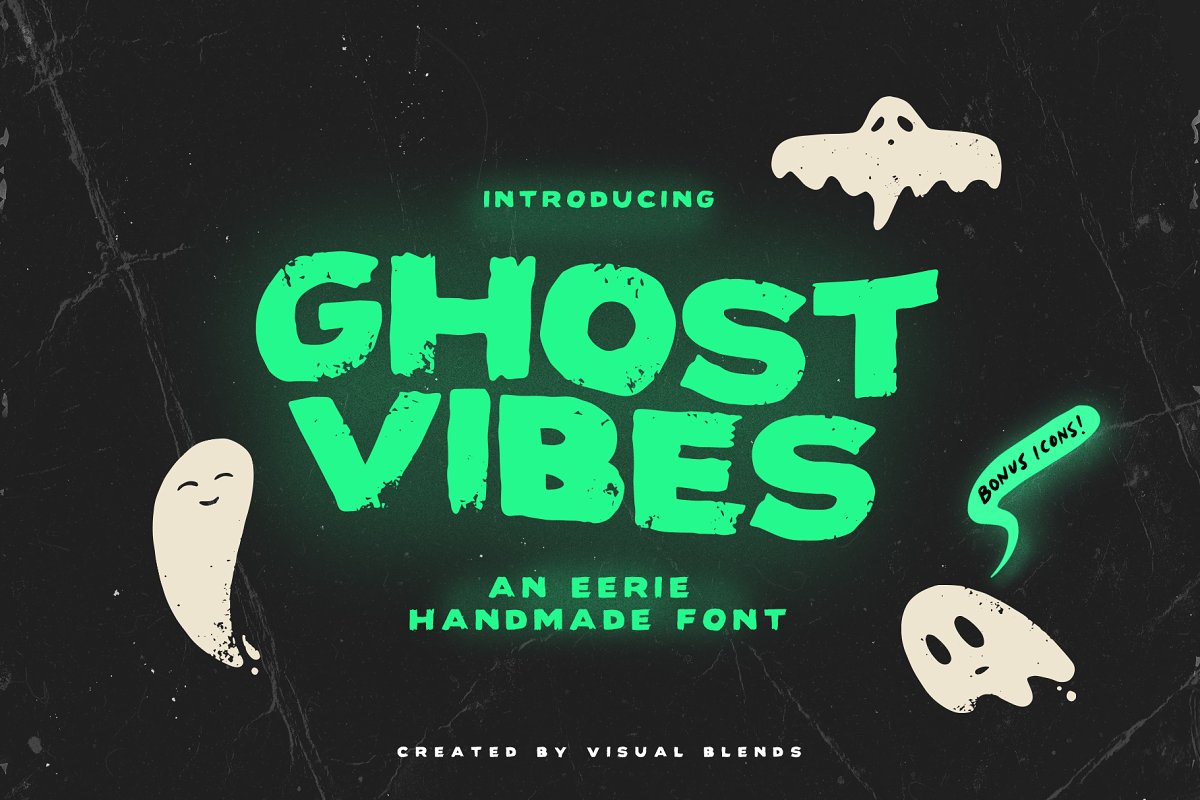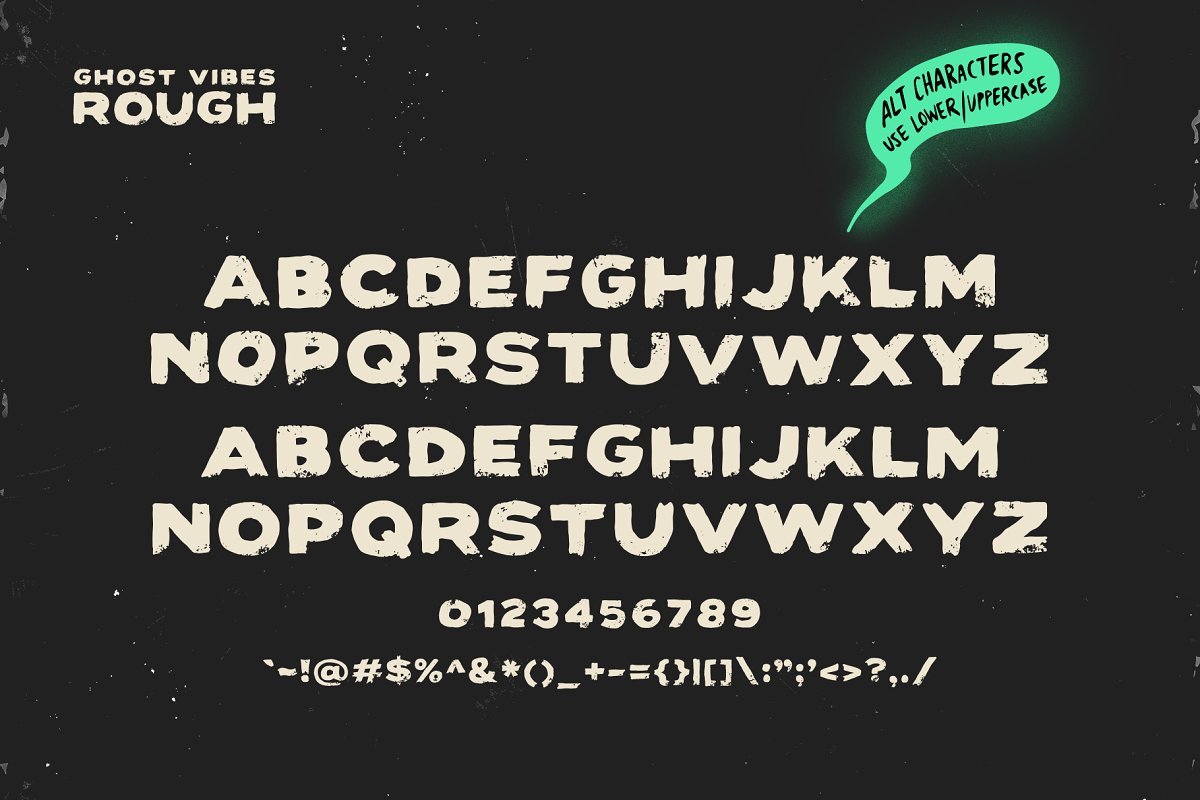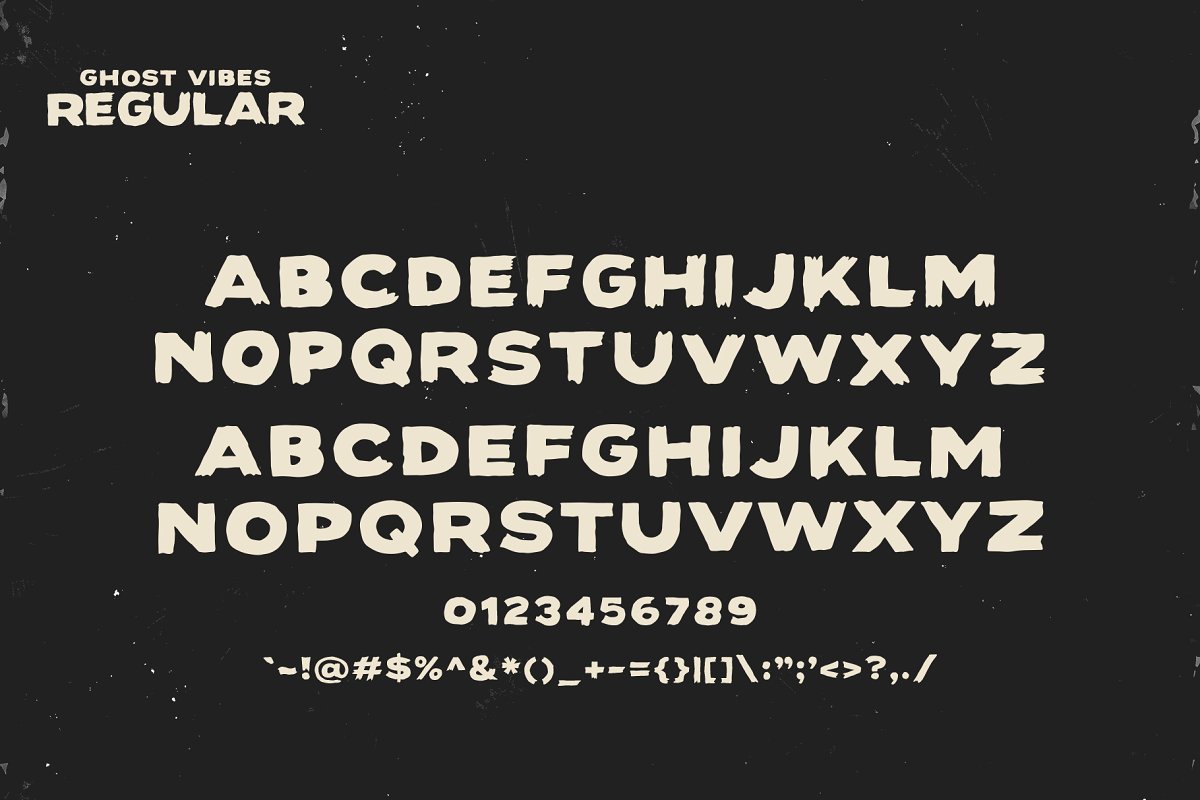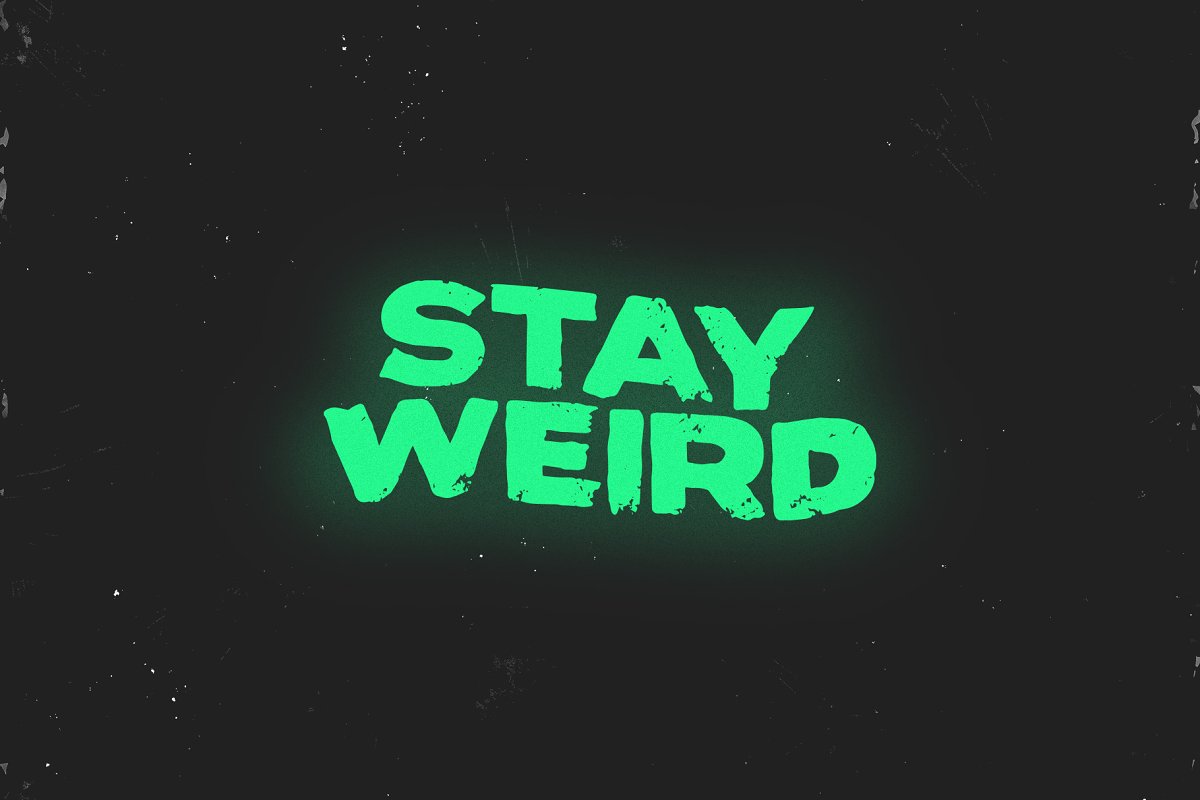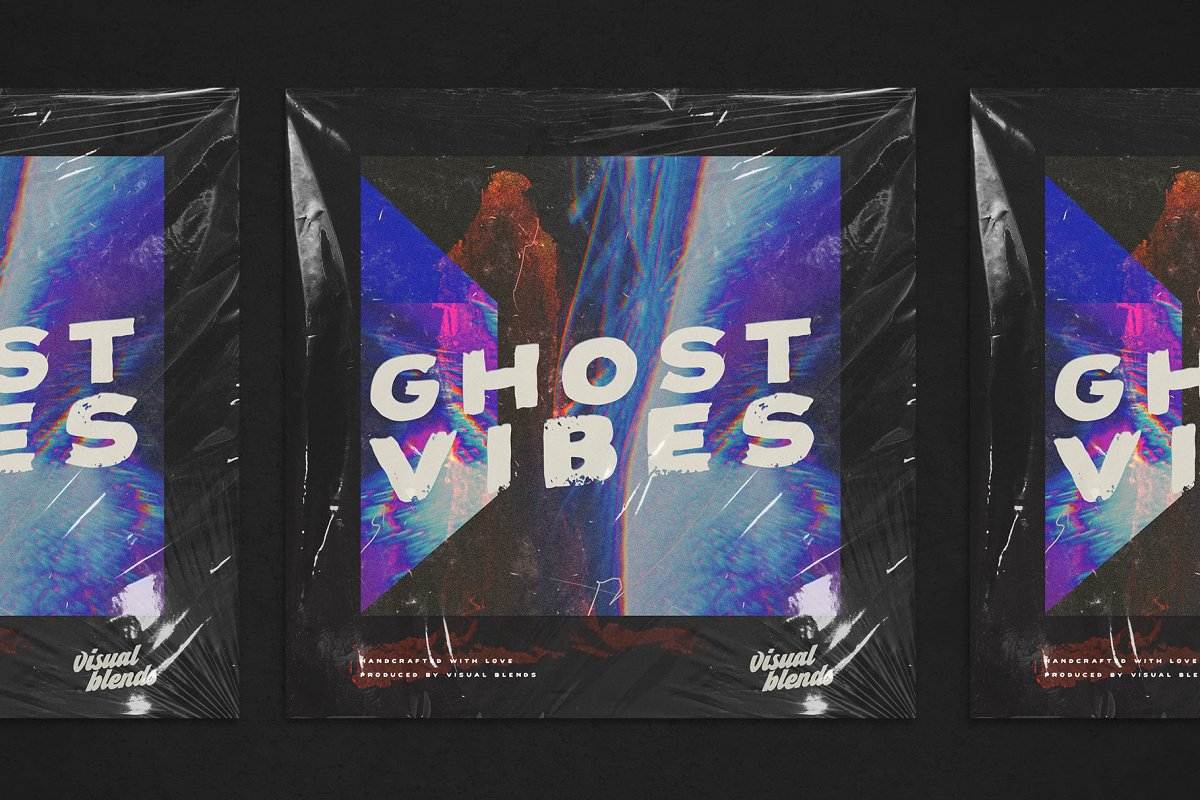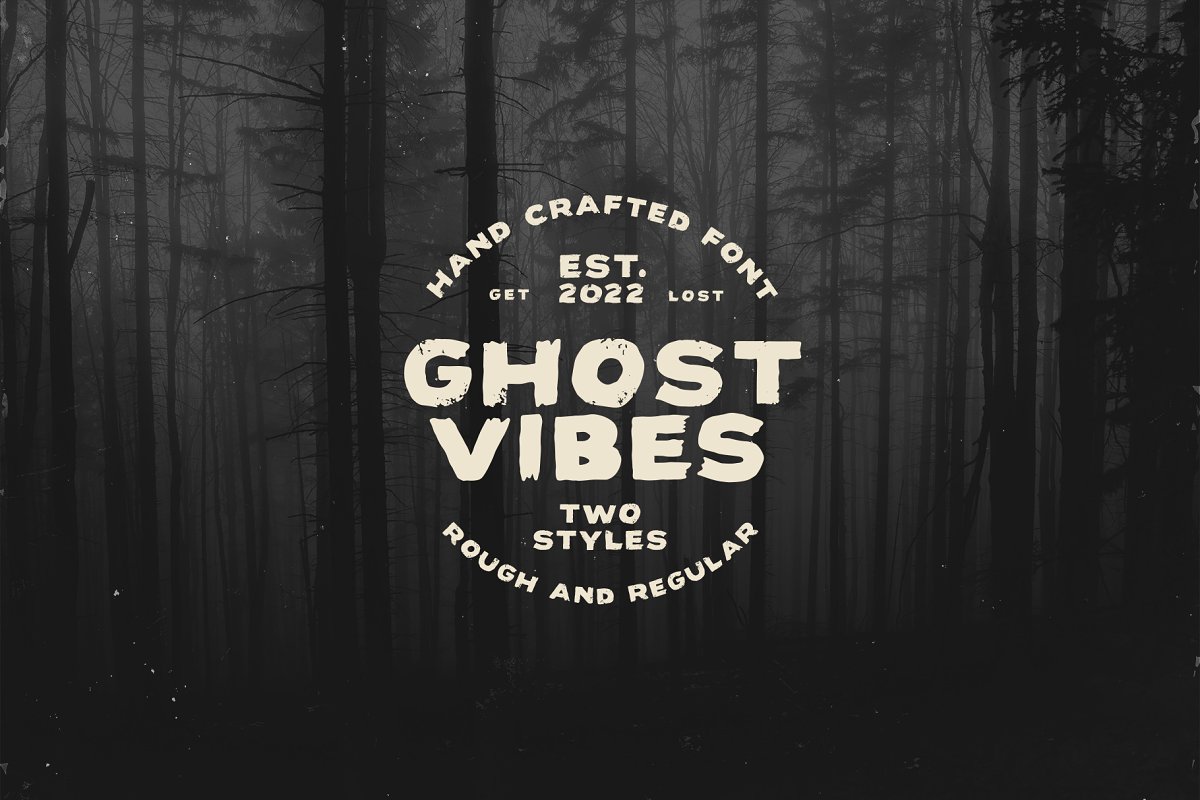
About the Ghost Vibes Font
Ghost Vibes!– An eerie hand crafted font with subtle imperfections and a spooky look, This font includes 2 styles; Regular & Rough, In addition, you can switch between different alt characters using upper and lowercase, What’s inside:1) Ghost Vibes – Regular- All Caps, Solid filled font with subtle brush-like imperfections and alternate characters
2) Ghost Vibes – Rough- All Caps, Distressed with a grunge effect, Also includes alternate characters, 3) Icon Goodies – Small collection of cute ghost illustrationsHandcrafted type brings a human aesthetic to design and stands out from standard machine made typefaces
This font is ideal for Halloween Party Invites, T-shirts, Video Titles and more! You will fall dead in love with the results, 😉